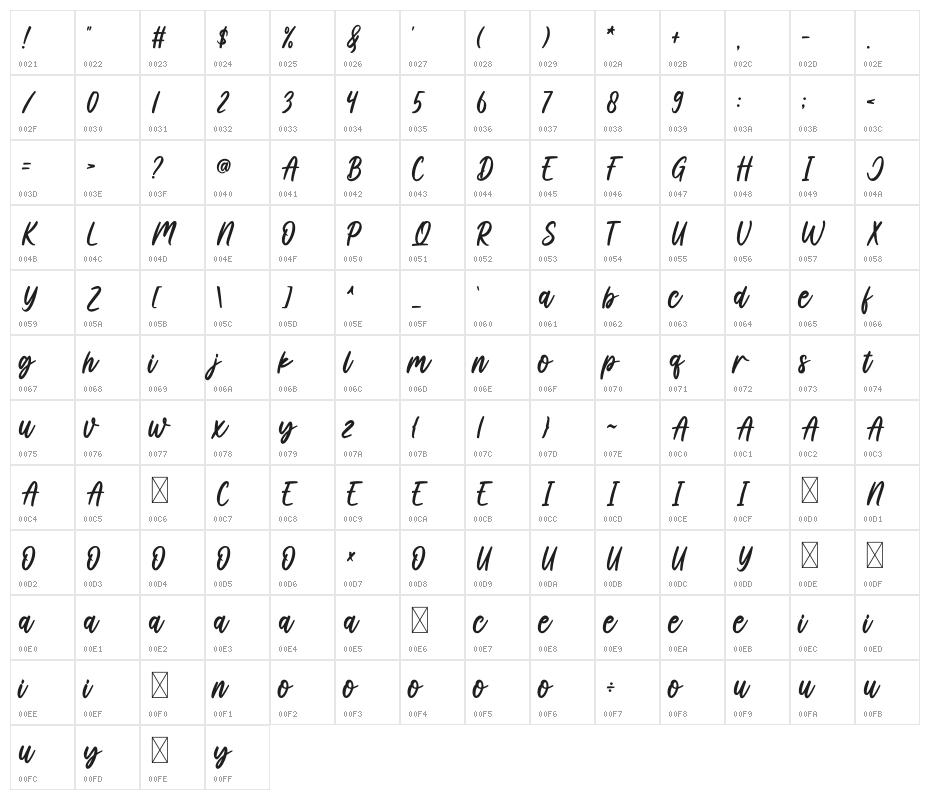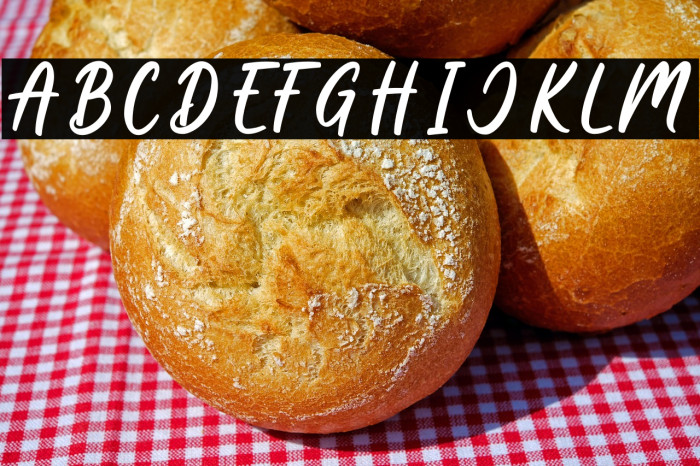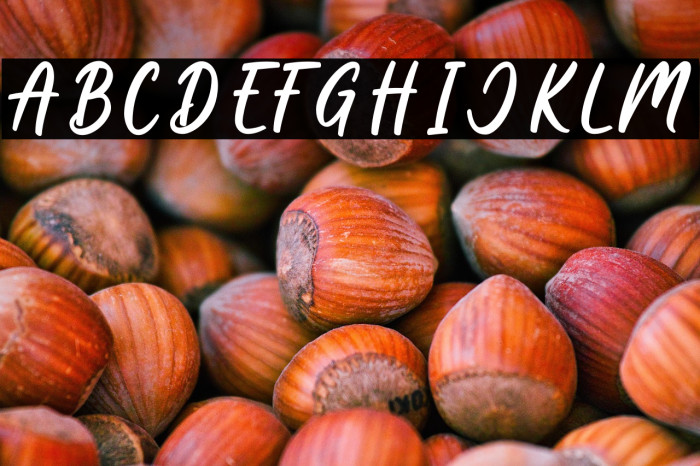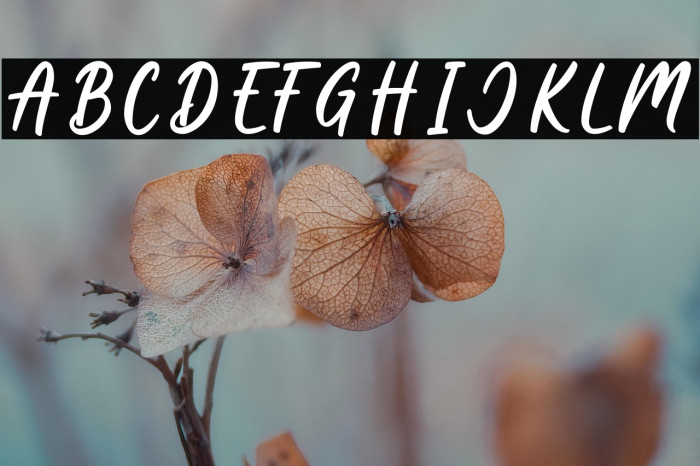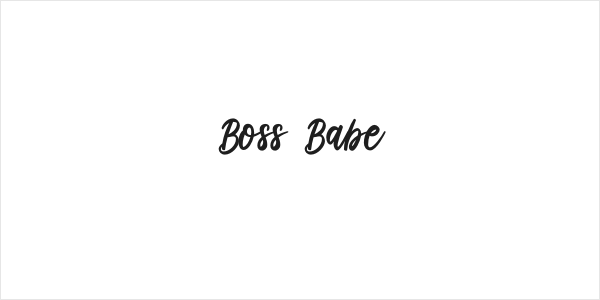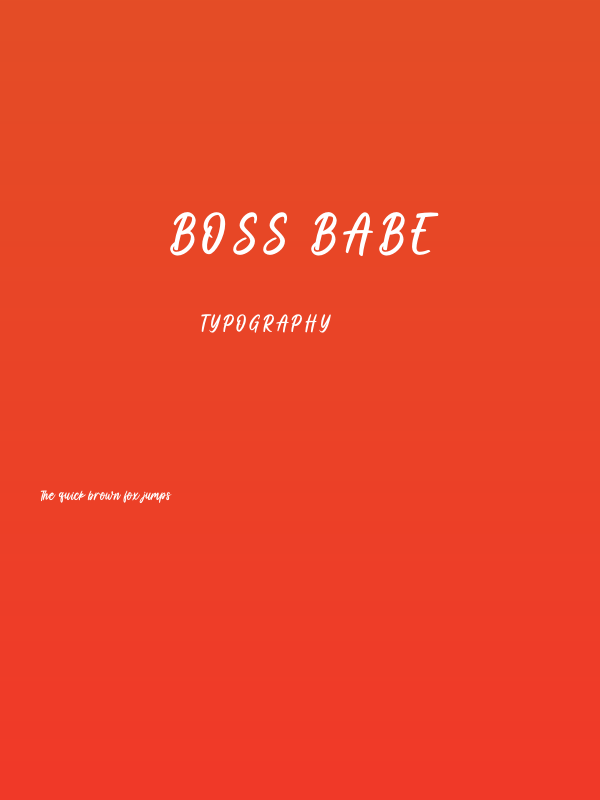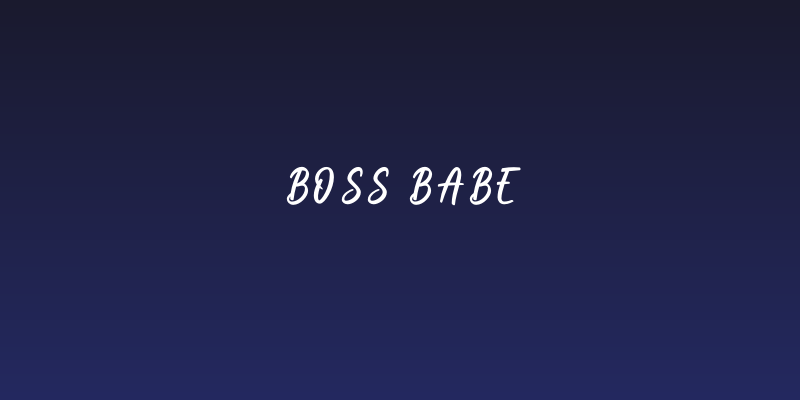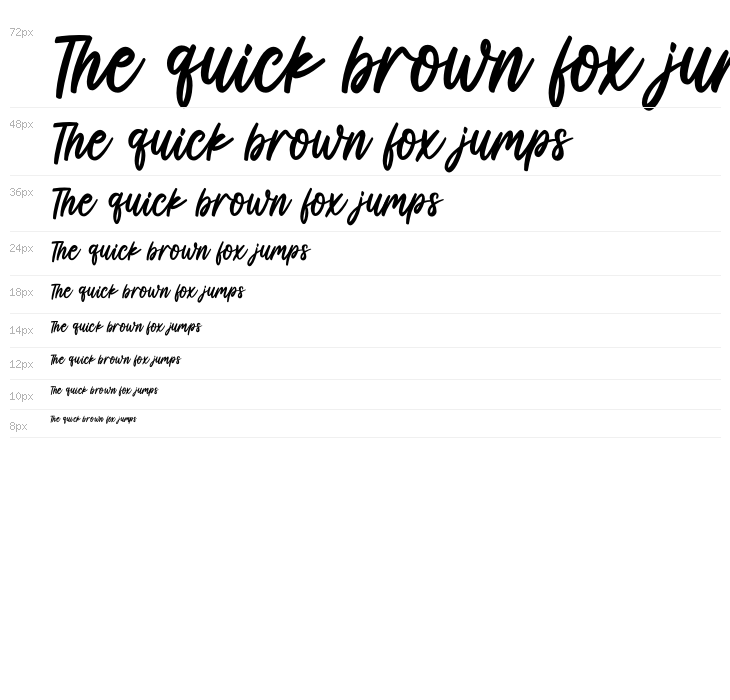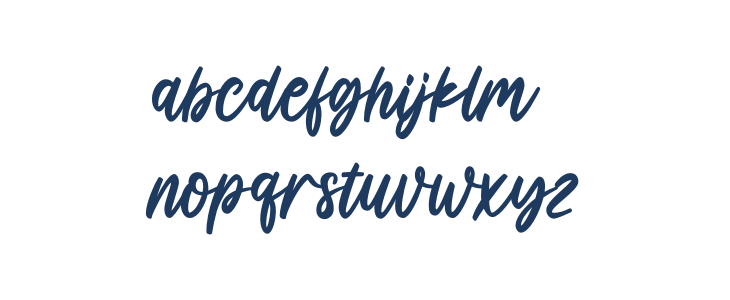
Boss Babe Font
Boss Babe Description
This font exudes a modern and stylish flair with its handwritten script style. The letters are fluid and connected, giving a sense of elegance and personal touch. The uppercase characters maintain a consistent height, while the lowercase letters have a playful bounce, adding to the font's charm. Numbers are clear and distinct, matching the overall aesthetic. Special characters are well-integrated, ensuring versatility in various design contexts. The strokes are smooth with a medium contrast, providing readability while maintaining an artistic feel.
| Use Case | Logos, Headlines, Invitations |
| Proposed Projects | Ideal for branding, social media graphics, invitations, and personal stationery. |